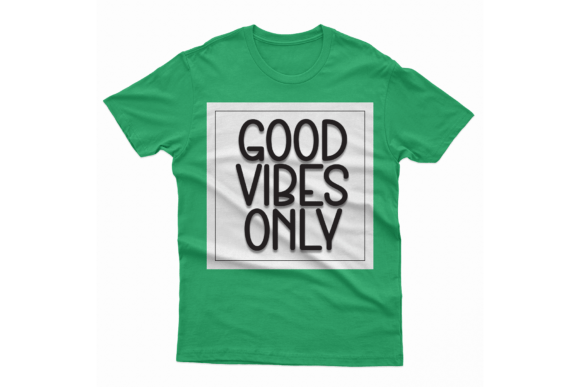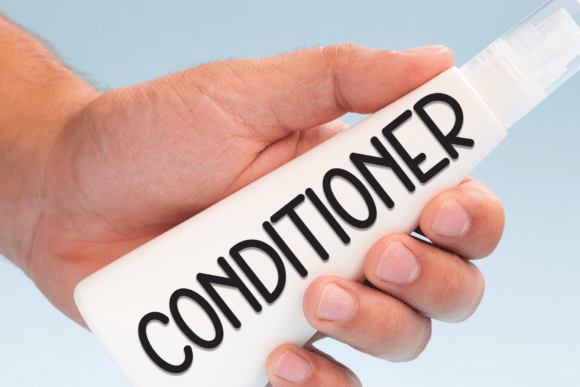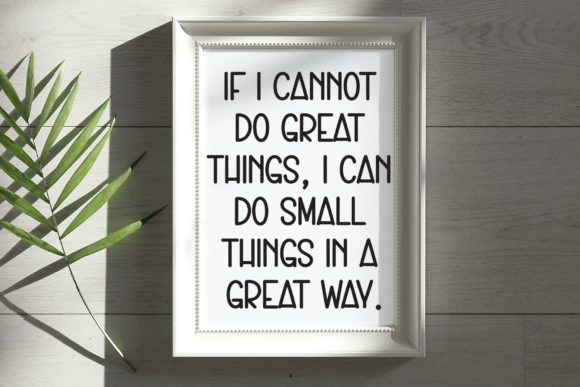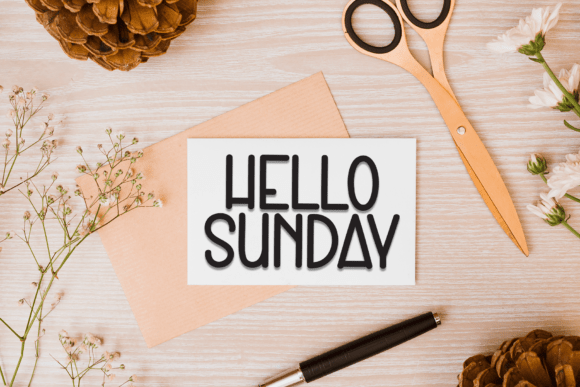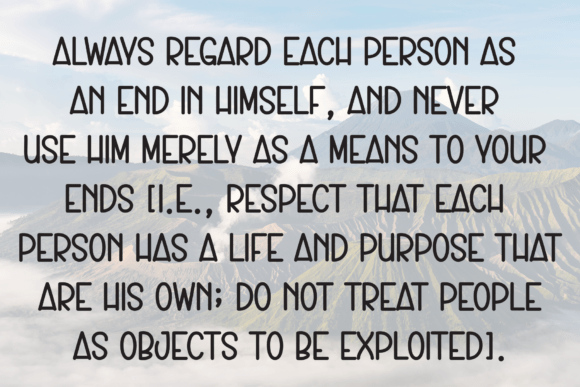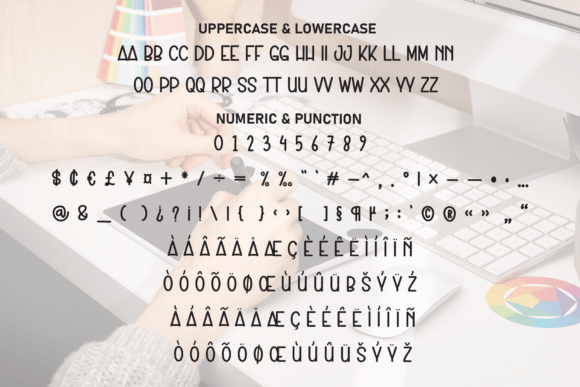
Discover the Charm of Designer Poster Font: A Friendly and Playful Handwritten Display Font
Are you looking for a font that can add a touch of warmth and playfulness to your creative projects? Look no further than the Designer Poster Font, a delightfully charming handwritten display font that is sure to capture your audience’s attention. With its simple yet endearing design, this typeface is perfect for crafting wedding invitations, designing bespoke cards, or for any creative project that calls for an element of entertaining playfulness.
The Perfect Font for Wedding Invitations and Greeting Cards
Wedding invitations and greeting cards are special occasions that call for a font that can convey warmth, love, and personality. The Designer Poster Font is specifically designed to meet this need, with a friendly feel that makes it perfect for crafting wedding invitations that exude warmth and sincerity. Whether you’re a designer or a crafter, this font is sure to become your go-to choice for creating beautiful and memorable cards that will leave a lasting impression on your loved ones.
A Font that Infuses Every Layout with Sweetness and Playfulness
The Designer Poster Font is more than just a font – it’s a design element that can transform your creative projects into something truly special. With its captivating design, this font infuses every layout with a sweet and entertaining allure that’s simply irresistible. Whether you’re designing a poster, a flyer, or a social media graphic, this font is sure to add a touch of playfulness and whimsy that will make your design stand out from the crowd.
Key Features of the Designer Poster Font
- Handwritten display font: The Designer Poster Font is a handwritten display font that is designed to add a personal touch to your creative projects.
- Simple yet endearing design: With its simple yet endearing design, this font is perfect for crafting wedding invitations, designing bespoke cards, or for any creative project that calls for an element of entertaining playfulness.
- Perfect for wedding invitations and greeting cards: This font is specifically designed to meet the needs of wedding invitations and greeting cards, with a friendly feel that makes it perfect for conveying warmth and love.
- Captivating design: The Designer Poster Font has a captivating design that infuses every layout with a sweet and entertaining allure that’s simply irresistible.
Tips for Using the Designer Poster Font
Here are some tips for using the Designer Poster Font in your creative projects:
- Use it for headlines and titles: The Designer Poster Font is perfect for headlines and titles, where its playful and whimsical design can really shine.
- Pair it with other fonts: Don’t be afraid to pair the Designer Poster Font with other fonts to create a unique and interesting design.
- Experiment with different colors: The Designer Poster Font looks great in a variety of colors, so don’t be afraid to experiment and find the perfect color for your design.
In conclusion, the Designer Poster Font is a delightfully charming handwritten display font that is perfect for adding a touch of warmth and playfulness to your creative projects. With its simple yet endearing design, this font is sure to become your go-to choice for crafting wedding invitations, designing bespoke cards, or for any creative project that calls for an element of entertaining playfulness. So why wait? Download the Designer Poster Font today and start creating beautiful and memorable designs that will leave a lasting impression on your audience.